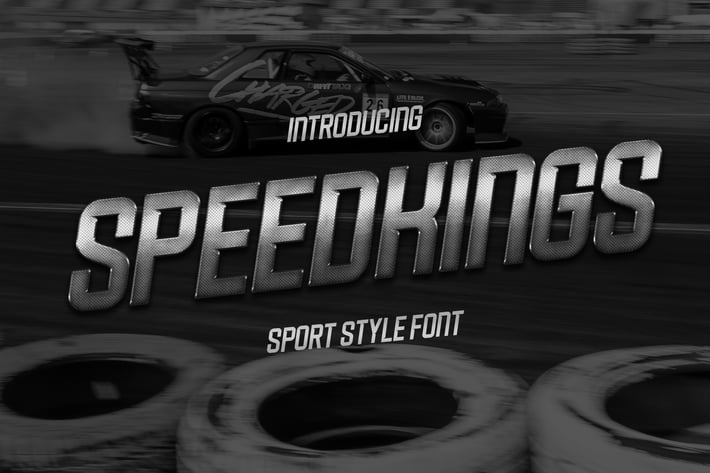
Speedkings - Futuristic Display Font
Speedkings is a Futuristic Display typeface, perfectly suitable for creating quotes, e-sport, lifestyle design such as logos, titles, magazines, and more.